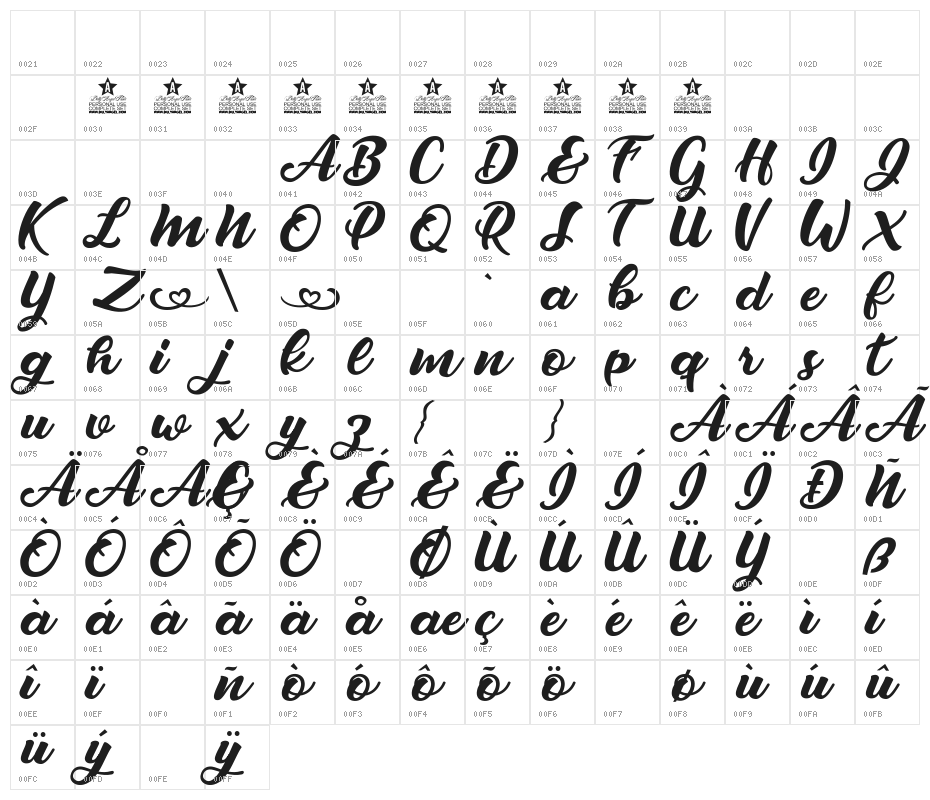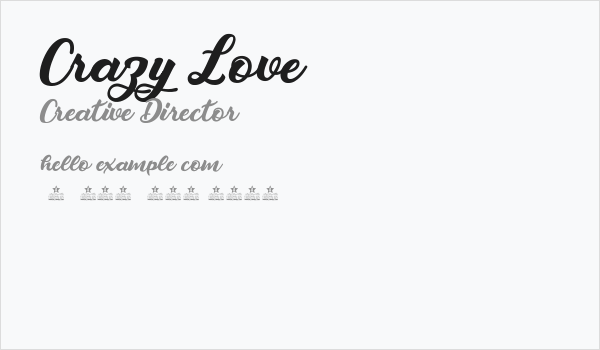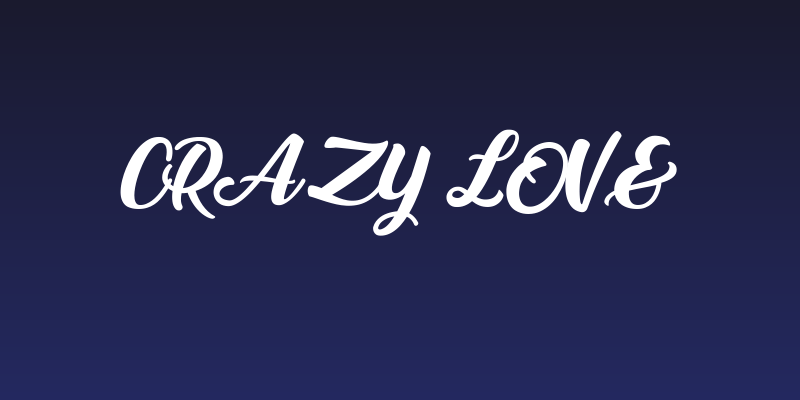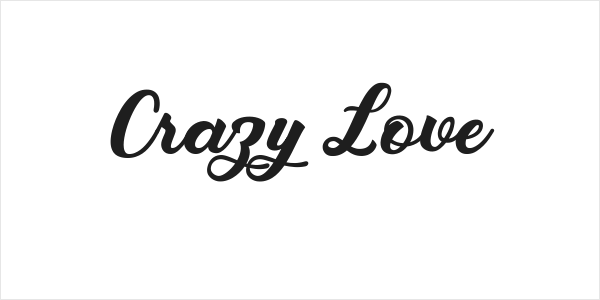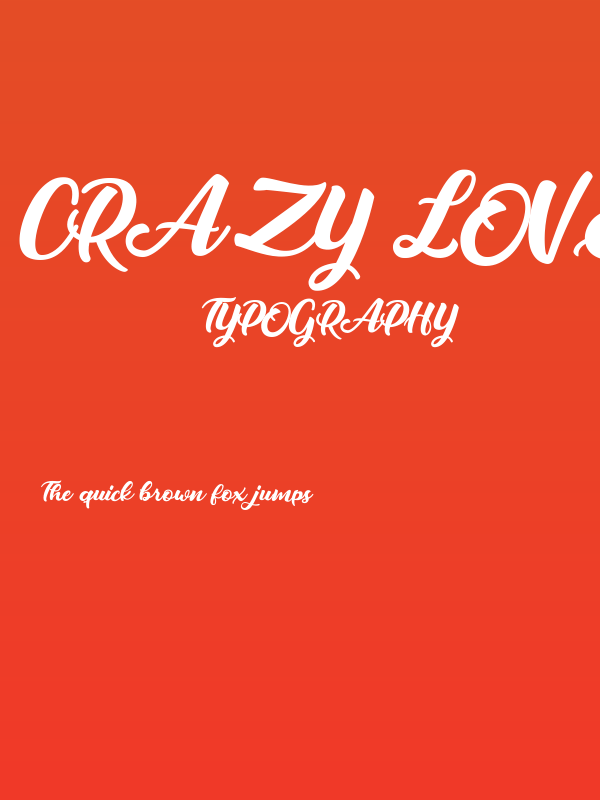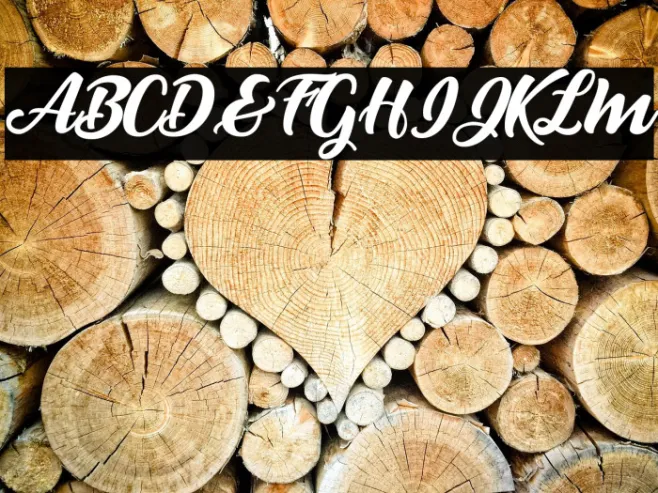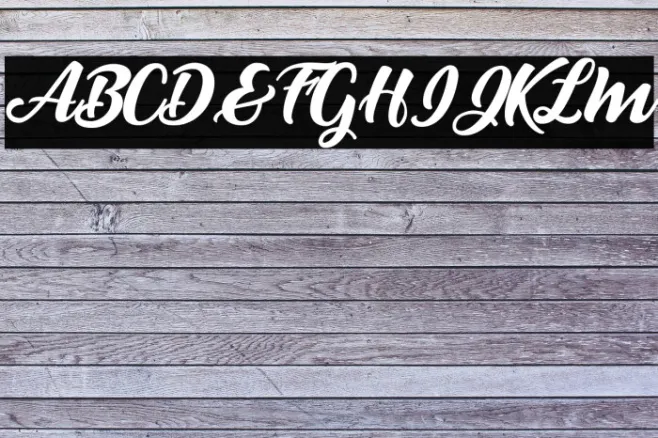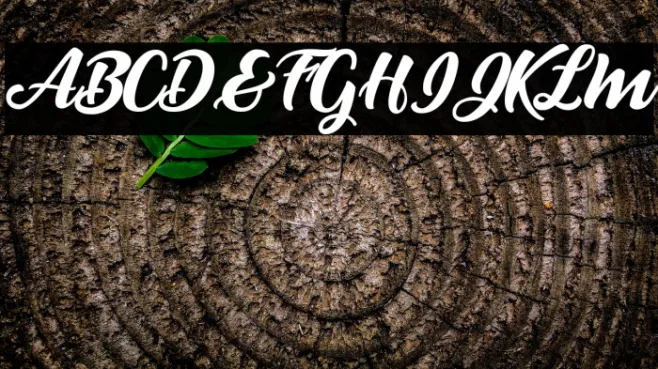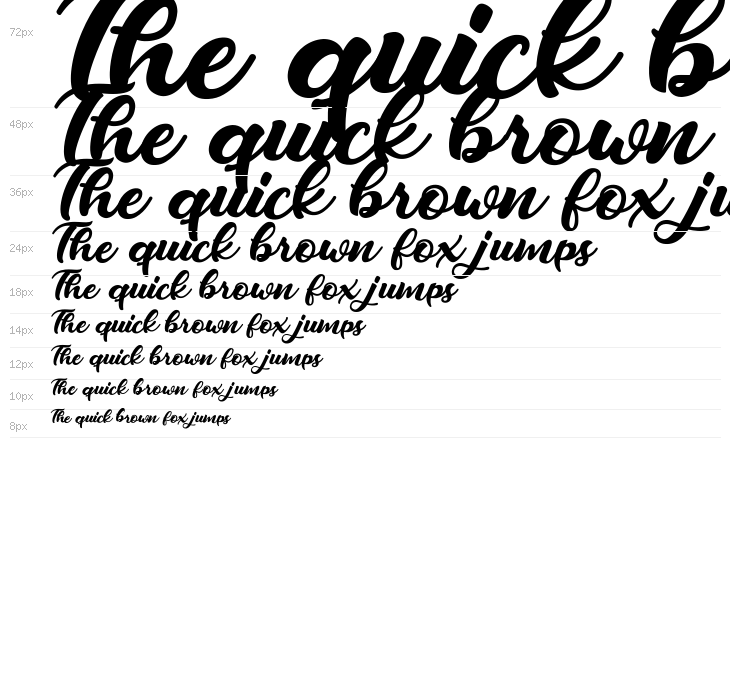
Crazy Love Font
Crazy Love Description
This font features a bold and expressive script style, characterized by its flowing, cursive letterforms. The strokes are thick and consistent, giving it a strong presence. Each character is designed with smooth curves and elegant loops, creating a sense of movement and fluidity. The uppercase letters are particularly ornate, while the lowercase letters maintain a cohesive and harmonious look. This font exudes a sense of creativity and flair, making it ideal for projects that require a touch of elegance and personality.